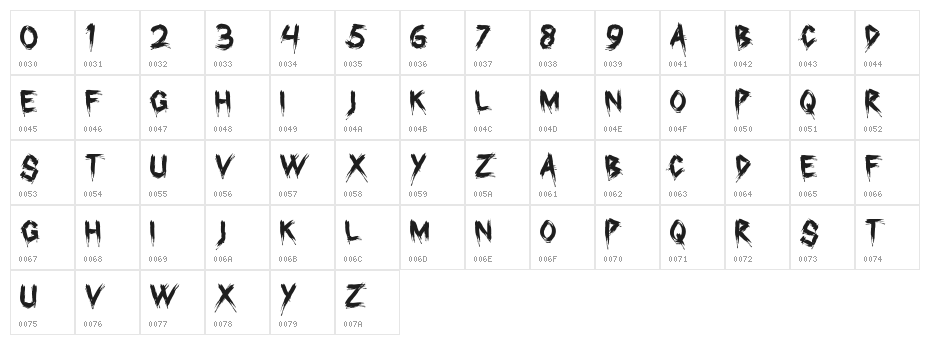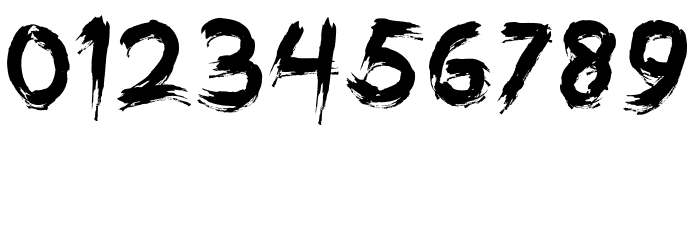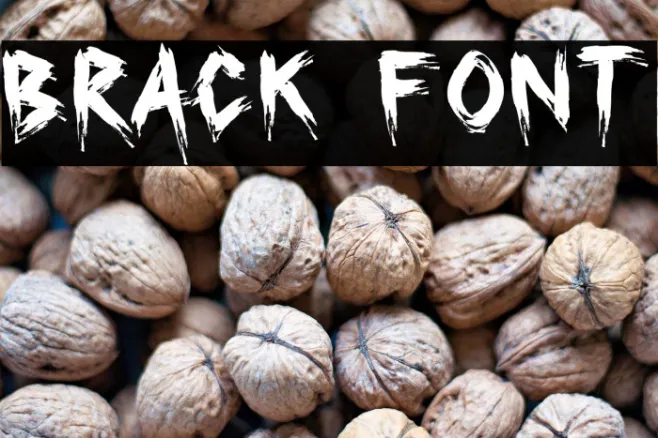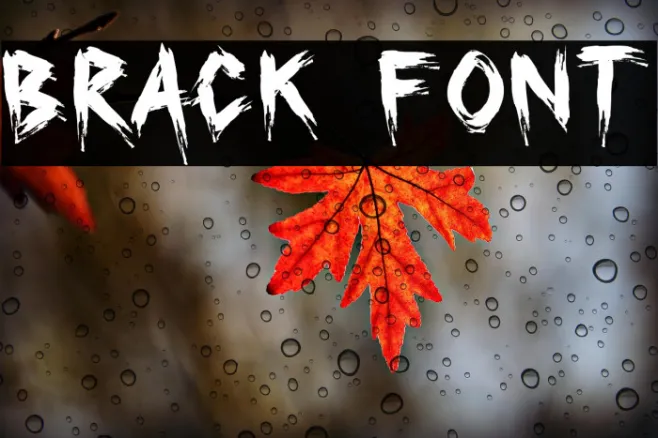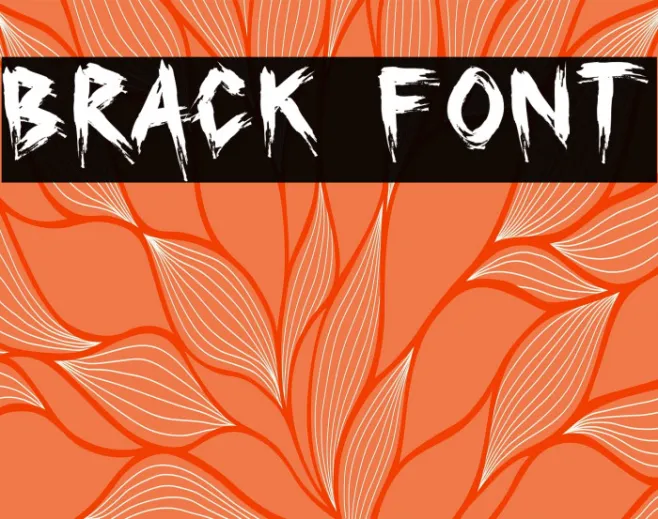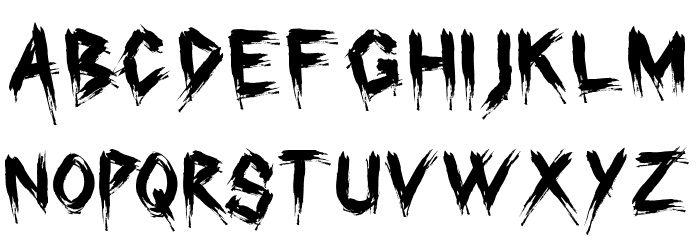
Brack Font
Brack Description
This font features a bold, jagged style that evokes a sense of raw energy and intensity. The characters are designed with sharp, irregular edges, resembling brush strokes or scratches, giving it a dynamic and aggressive appearance. The uppercase and lowercase letters maintain a consistent style, with each character exhibiting unique variations in stroke thickness and angles. The numbers and special characters follow the same aesthetic, ensuring a cohesive look across all glyphs. This font is ideal for projects that require a dramatic and impactful visual presence.
| Use Case | Headlines, Posters, Logos |
| Proposed Projects | Perfect for horror-themed designs, music album covers, posters, and edgy branding projects. |